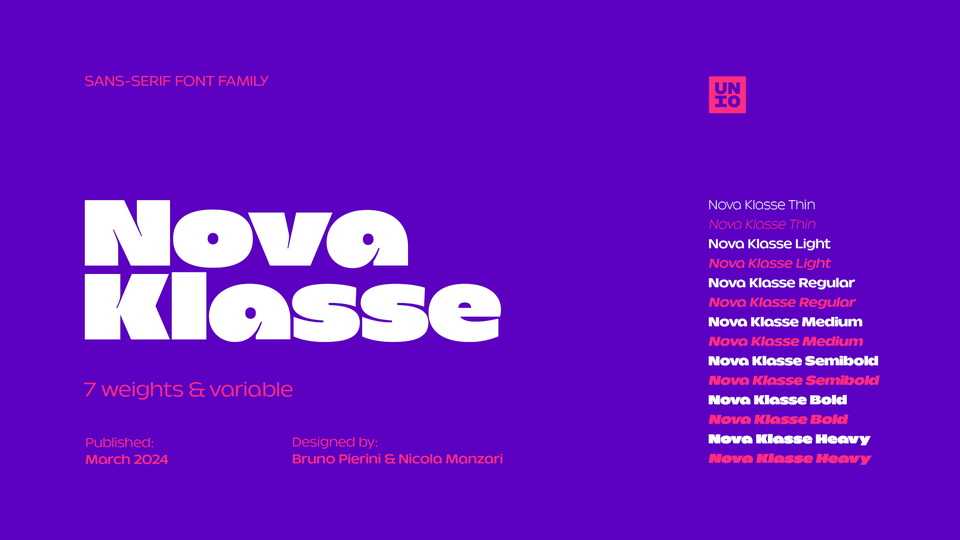
Download Nova Klasse font, a modern geometric sans serif typeface that bursts with personality. Nova Klasse font combines circular and rectangular shapes to create a distinct look.
Designer: Unio Creative Solutions